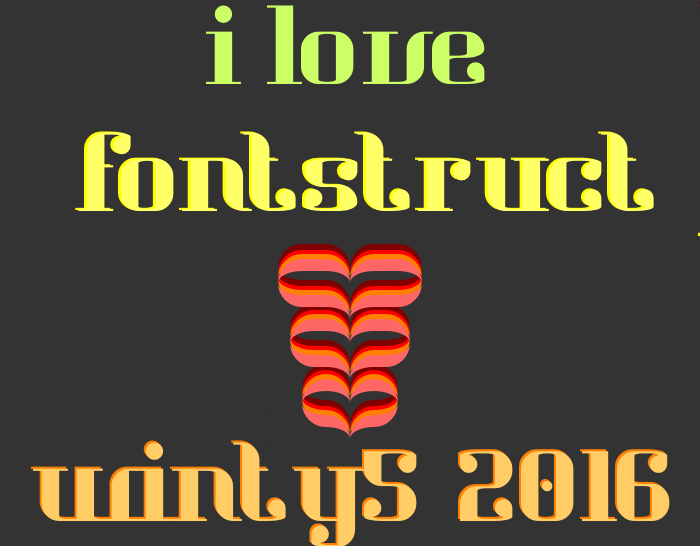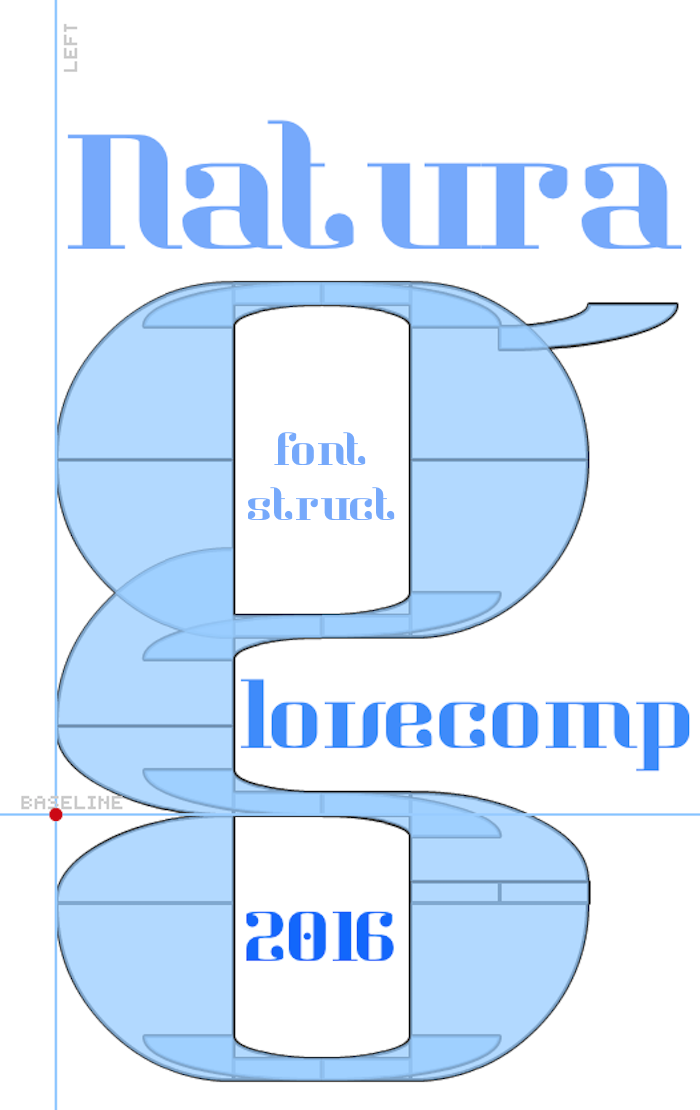
A font perfect for fancy greeting cards for Valentines' Day and other occasions. I was inspired by some of laynecom's fonts. Sample coming soon.
Very elegant. You are developing a very mature eye for this old font game Noah.
Looks quite playful! The 4 looks a bit like Y/y, would extending the crossbar of the cup to the right be possible? Or would that change the look too much?
I like this. And yes, you have gotten better. We all have. :) Suggestions: I would make the seven wider, i.e., not have the right serif, so that the middle section thins out like Z. I would change the top of the t, i.e., maybe make it like the leg of seven, but flipped? I would also raise the descenders on J and Q. My only other thing: could the rounded legs, i.e., A, K, M, N, R, X, et cetera, be leveled at the same height as the other serifs?
P.S. You could fix 4 by making the left leg round at the top, and the bar squared at the bottom.
*You could essentially just flip the left leg.
@TCWhite: I've made all the suggestions you asked, but I don't understand what you mean about the 4.
Check my version of this out. :)
I like your new Q and g.
Yup, I think it works better this way. I changed the & as well, I included the old & and the old g on the grave and circumflex accents, though I might move them to some other character or the Private Use Area if these are required for something.
Here's a quickie sample, i'll make a better one later.
I put the one-storey g in the IPA, as that is where is belongs—the capital version is in Latin Extended-D. Nice sample. :)
Thanks. I may do the same with the g in this one. Another sample is in the works.
2nd sample:
3rd sample:
this is amazing. Love it!!
Changed letter t and adjusted spacing. thinking about making a whole new number 4